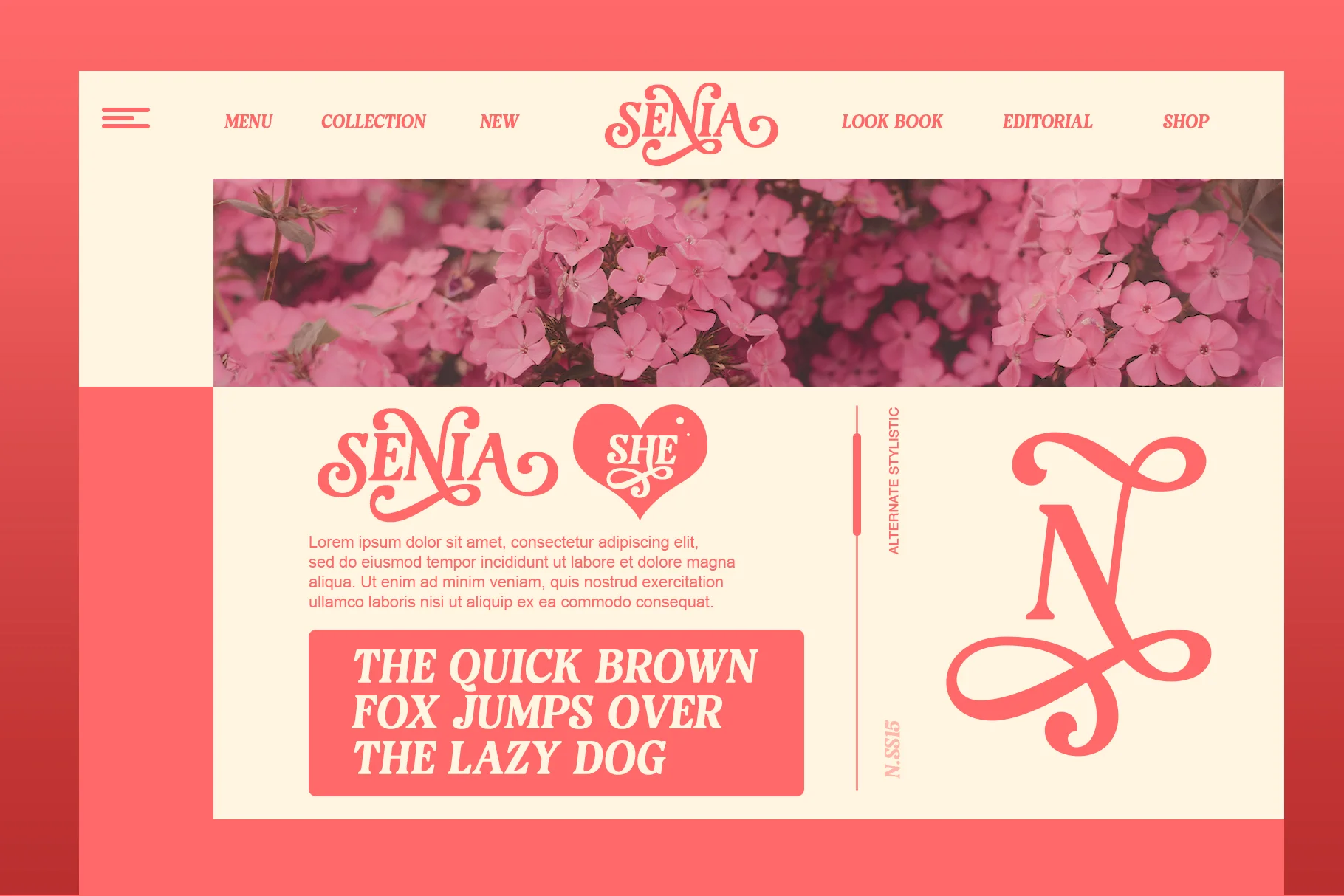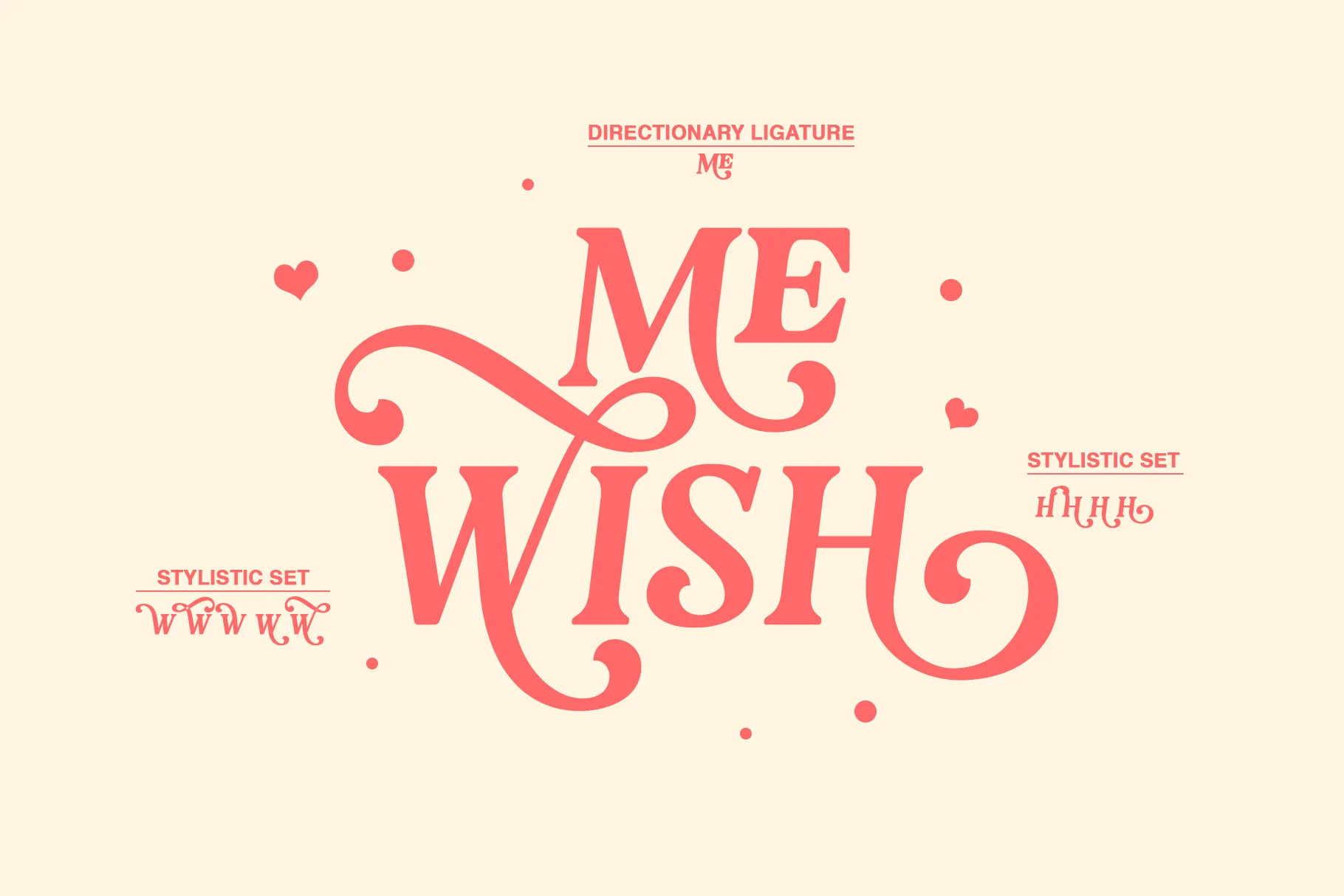
The Shane
"The Shane" in the image, is a highly decorative bold serif display font. Its design is characterized by strong swashes and alternate stylistic ligatures that intertwine, giving it a playful, romantic, and eye-catching aesthetic.
Features
- Uppercase and Lowercase – Complete range of letter cases for diverse uses.
- Numerals – Includes numbers for various creative needs.
- Functional – Designed for efficiency and aesthetic appeal.
- Multilingual Support – Includes characters for multiple languages.
- Stylistic Variations – Offers creative style options.
Due to its strong and unique personality, this font is ideal for:
- Branding & Logos: Brands seeking a sweet, unique, or romantic identity (e.g., bakeries, coffee shops, young fashion brands, or creative studios).
- Packaging Design: Labels for sweet treats, gourmet goods, cosmetics, or gift sets.
- Marketing Materials: Posters, flyers, or website headers for events like weddings, anniversaries, or summer festivals.
- T-shirt Typography or Merchandise.